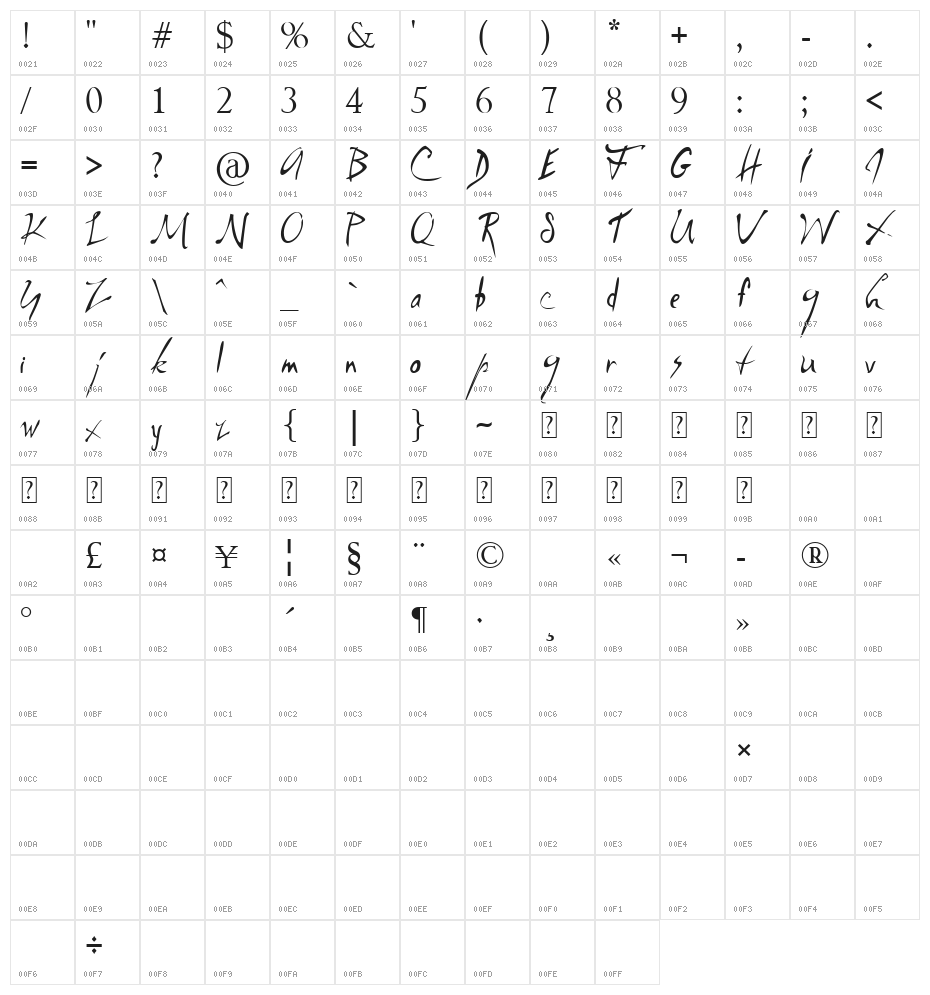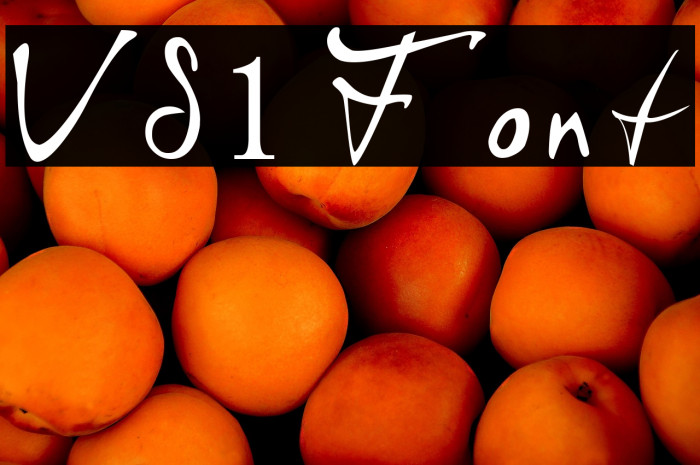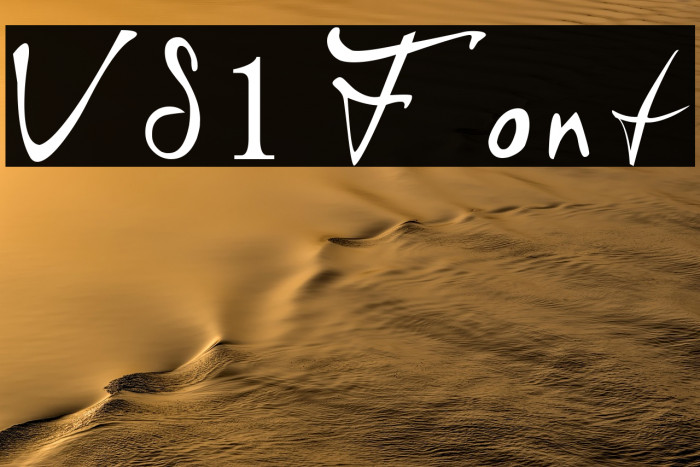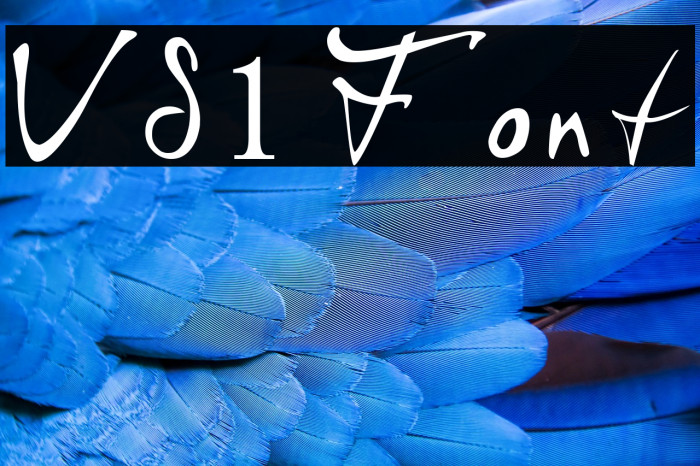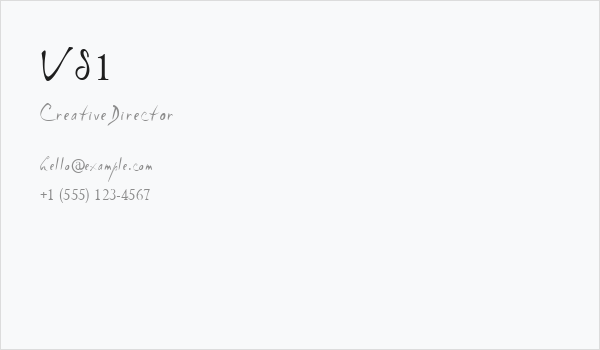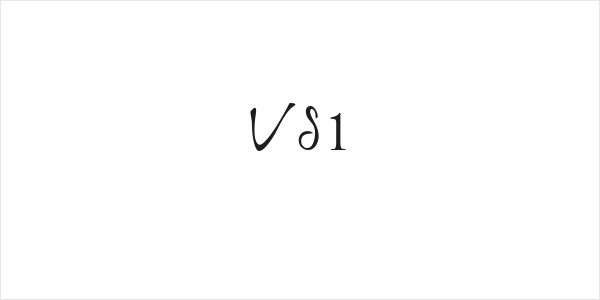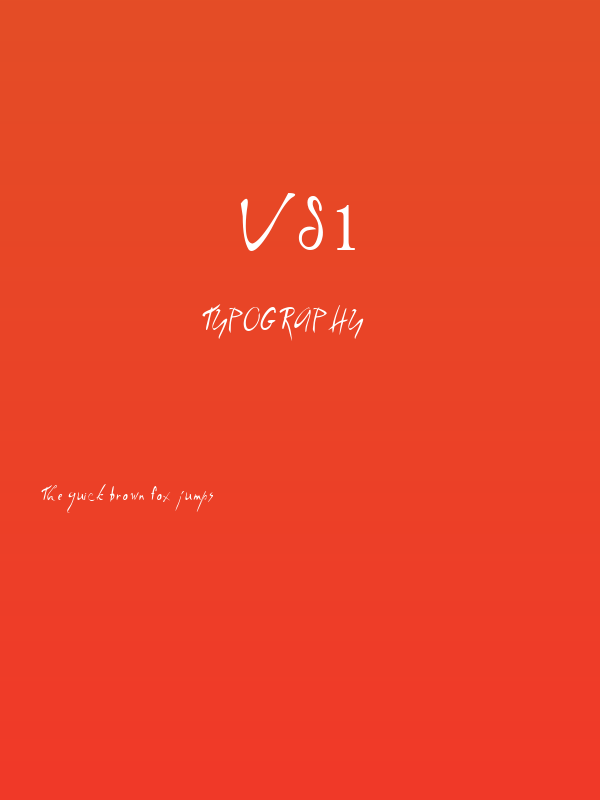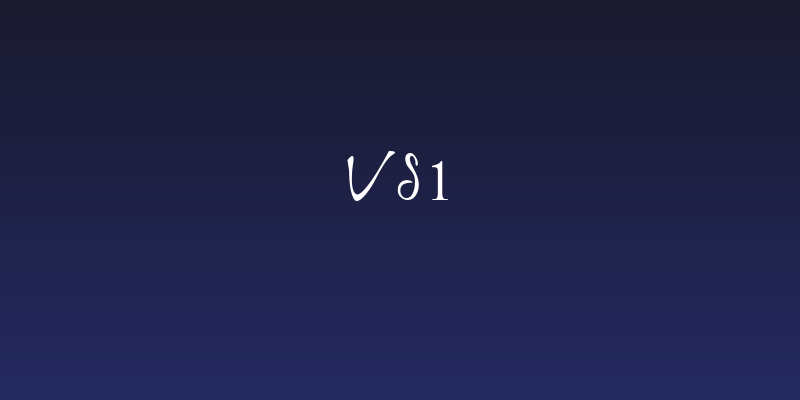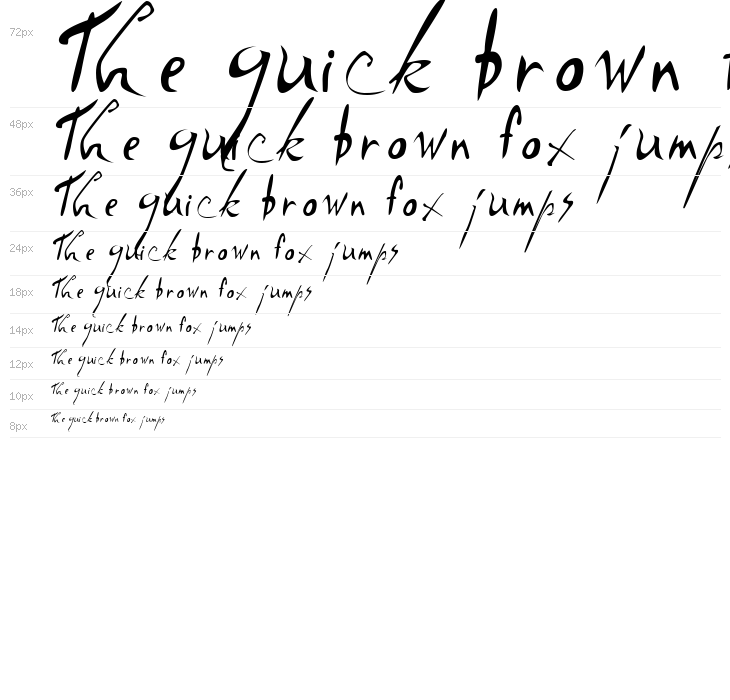
VS1 Font
VS1 Description
A dynamic and expressive script font with a handwritten style, featuring irregular strokes and a playful appearance.
| Use Case | Logos, Headlines, Artistic text |
| Proposed Projects | Greeting cards, invitations, artistic projects. |